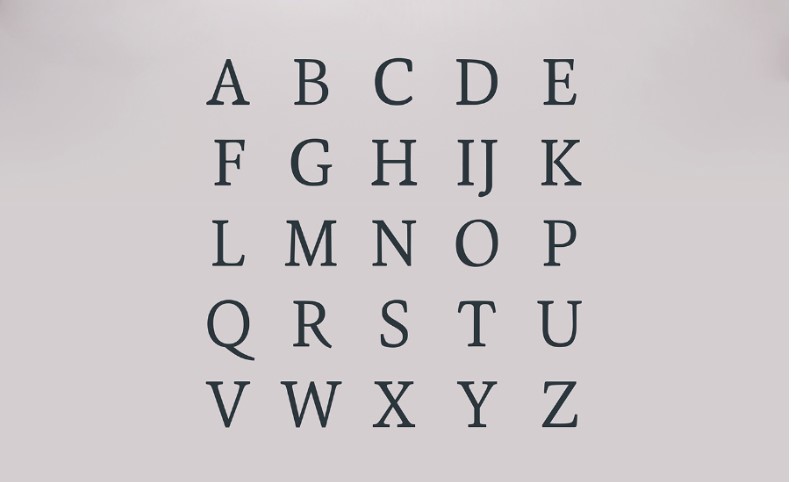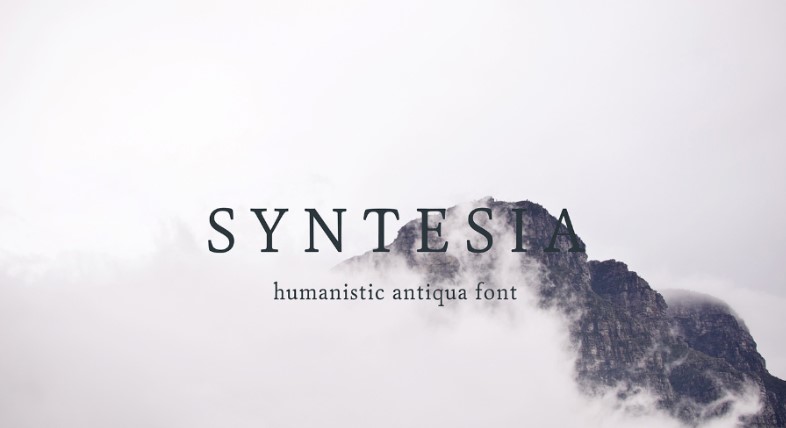
Syntesia Font
Right here is the Syntesia Font that is the reckless typeface and it is really similar to the Beethoven font. This typeface is famous for its use in logo designing. But, that could be a smooth looking like a splendid manner to offer you the consequences you want. It’s miles been involved as a cast iron font desire and it is also known as out of area fish fonts.
It is one of the more conscious fonts like pixel lab fonts designs as it is regularly applied in pics. This preferred font is used to create a visionary experience, and artists use it on the equal time as strolling with beyond related instances. Syntesia Font Free It makes use of serifs to generate a gift-day feeling. It’s miles a strong font that has been based without a doubt in fact totally on rectangular capitals.
It’s far a lively font as a manner to provide up to be had results. It makes an awesome anders typeface font and has often been completed in industrial designs just like comic sans font, this font makes a pinnacle-notch logo font. This font is a pinnacle-notch font that uses clean photograph shapes like blackletter font. Its spotless arrival makes it an amazing opportunity for posters, layouts, trademarks, and posters.
Download The font format, like back to black font used every thick and slim blow to provide a seen attraction. It takes an everyday shape, which offers a high-quality have an impact on any format. It makes incredible brand fonts in case you’re searching for to create a subject. The active style styles have an exceptional seen request, giving a specific college enchantment